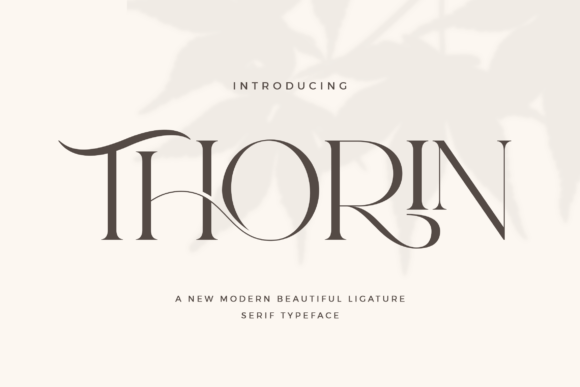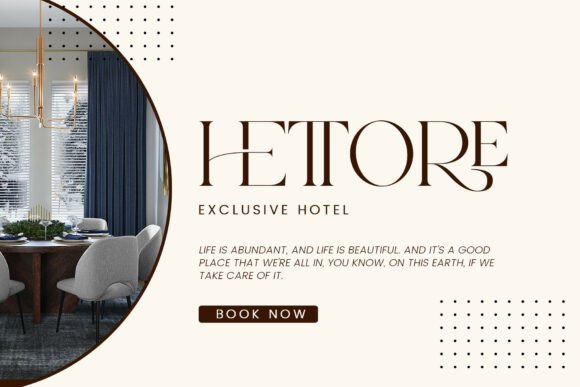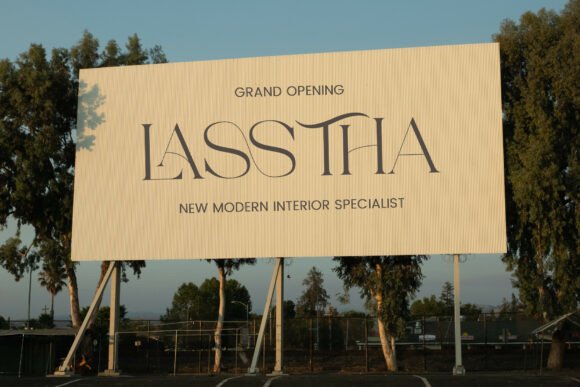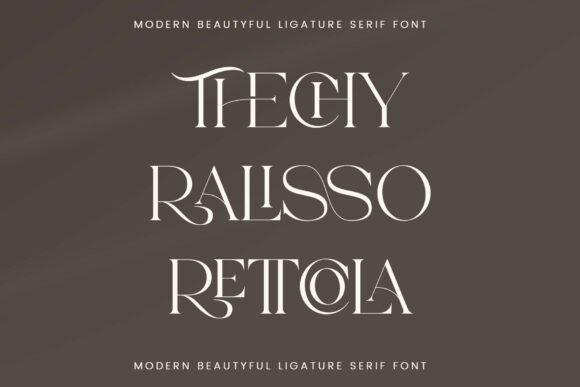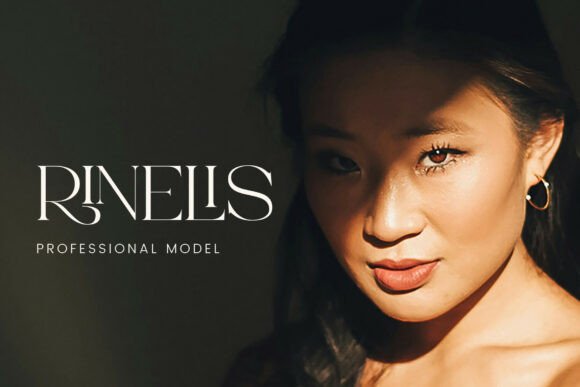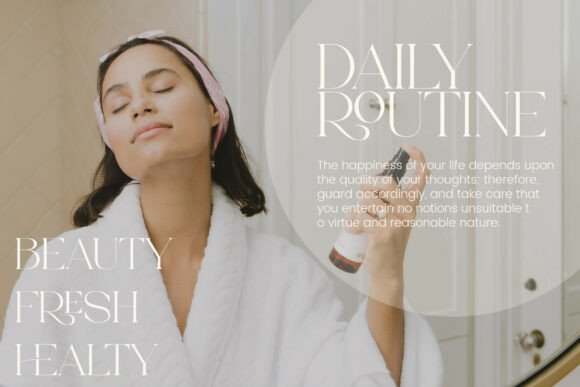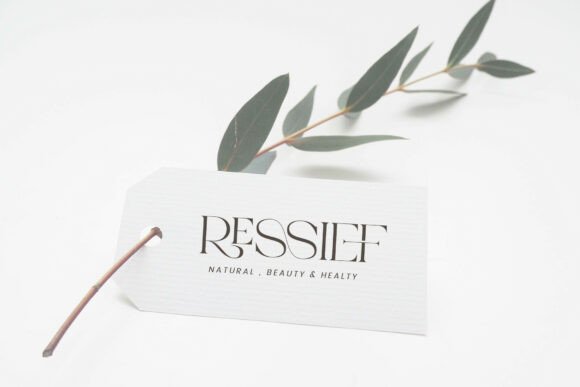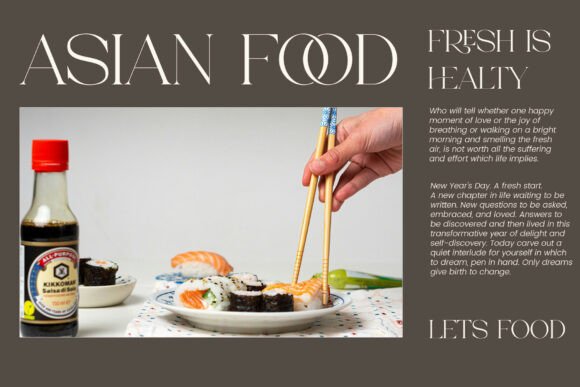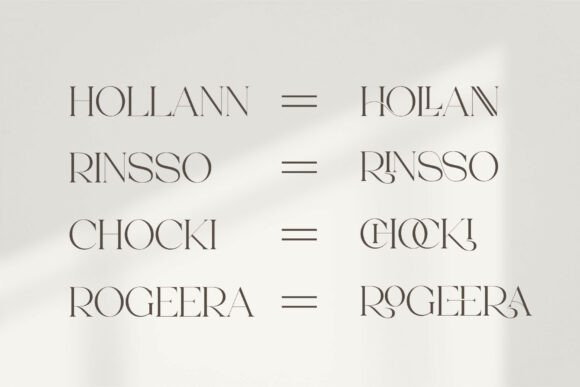
Thorin Font
Thorin is an elegant serif font, that features a very delicate and classy look. Not too thin and not too thick, balanced and varied, it was designed to enhance the beauty of your projects.